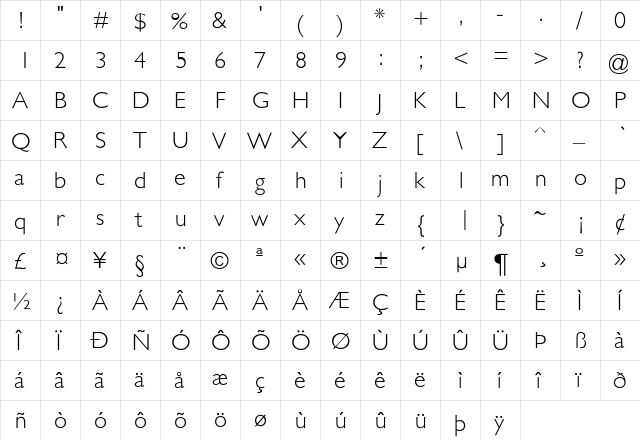
GarrisonSans-Light Regular
Design Context for GarrisonSans-Light Typeface
GarrisonSans-Light offers clean, dependable letterforms without strong stylistic allegiance, making it a practical choice for designers who need flexibility. Its slender proportions lend an understated elegance to any composition.